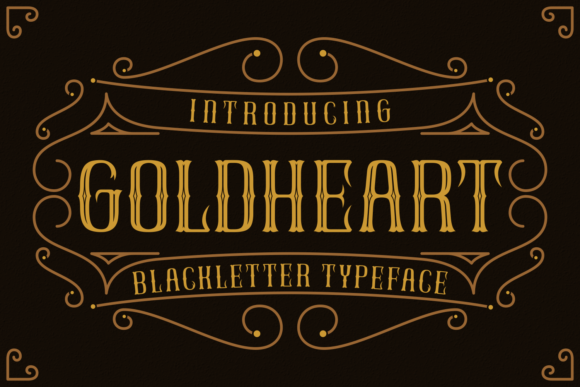
Behold GoldHeart, a font so elegant and distinct, its beauty will leave you breathless and your designs utterly captivating. Its blackletter style evokes a sense of ancient charm, inviting you on a journey through history with every word you type.
With GoldHeart, your creations will transcend the ordinary and enter the realm of the extraordinary. Its intricate details and flowing lines will add a touch of sophistication to any project, whether it's a book, a poster, or even a simple social media post. Let your words dance across the page in a mesmerizing display of artistry.
Imagine the impact your book will have, adorned with the exquisite GoldHeart font. Its timeless beauty will draw readers in, captivating their attention from the very first page. Each letter, meticulously crafted, will tell a story, transporting them to a world of enchantment and intrigue.
GoldHeart is more than just a font; it's an experience, a journey into a world of endless creative possibilities. Its versatile nature allows you to explore various styles and designs, giving you the freedom to express your individuality. Whether you're creating a wedding invitation, a marketing campaign, or a personal journal, GoldHeart will transform your words into something truly extraordinary.
Don't settle for ordinary fonts that blend into the background. Choose GoldHeart and elevate your designs to new heights. Its unique charm and timeless appeal will set your creations apart, leaving a lasting impression on your audience.